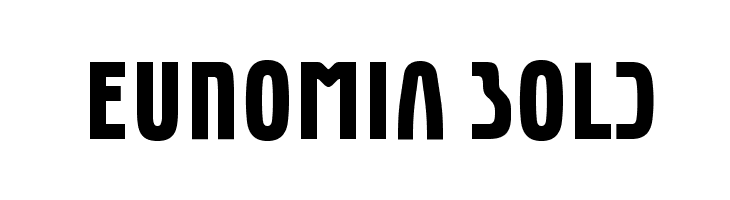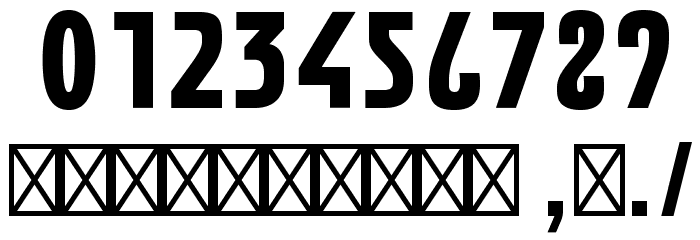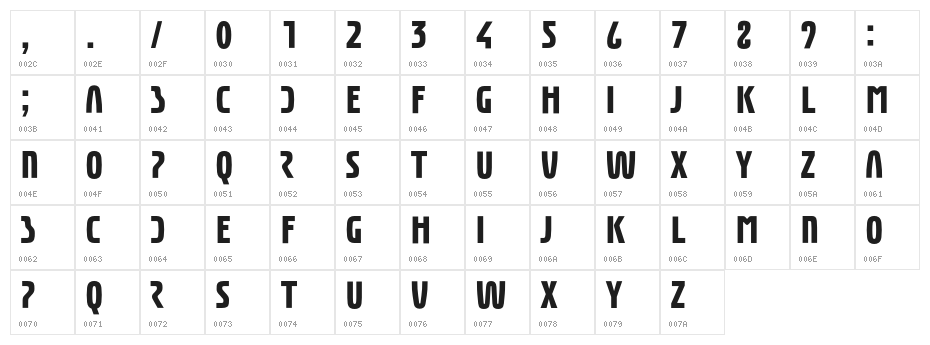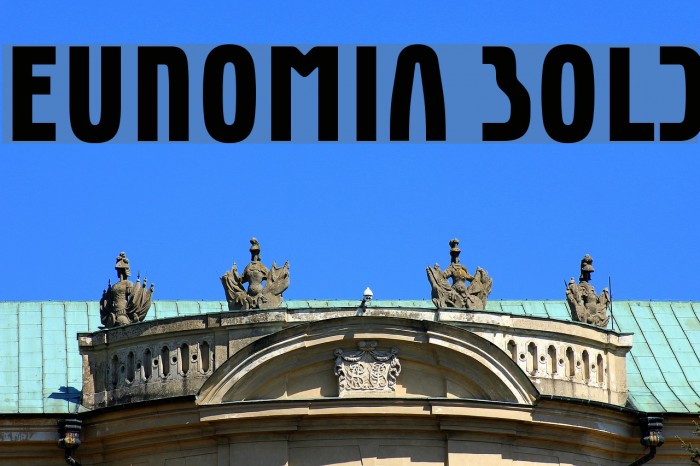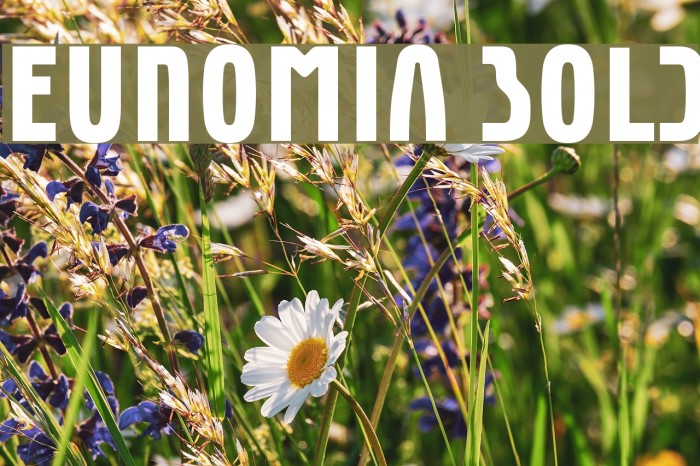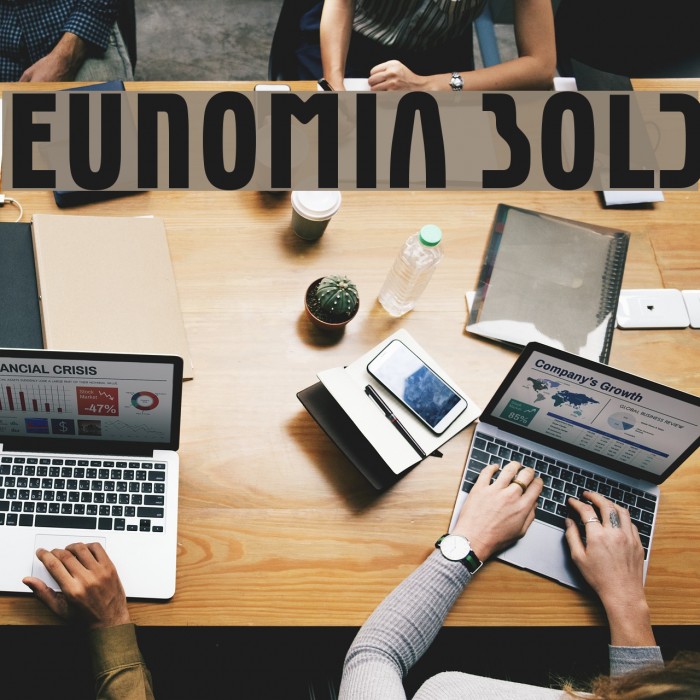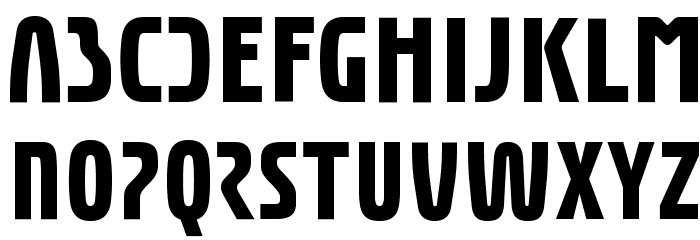
Eunomia Bold Font
Eunomia Bold Description
This font features a bold and geometric design with strong, angular lines and a modern aesthetic. The characters are constructed with a uniform thickness, giving them a sturdy and impactful presence. The uppercase letters are particularly striking, with a distinct architectural feel that suggests strength and stability. The numerals and special characters maintain this boldness, ensuring consistency across all glyphs. The overall style is clean and contemporary, making it suitable for projects that require a strong visual impact.
| Proposed Projects | Ideal for branding, posters, headlines, and any design work that requires a bold statement. |